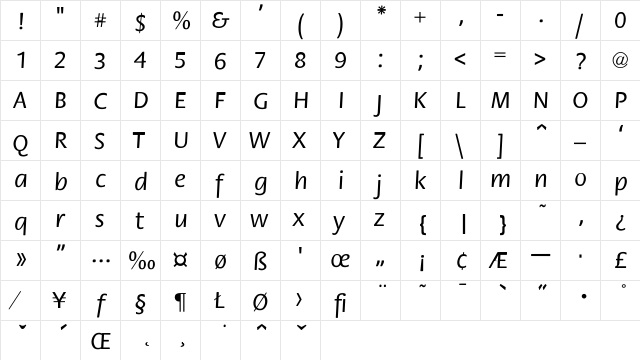
Flora-Normal Regular Font Preview
Flora-Normal Regular
Flora-Normal Regular Font Details
Design Context for Flora-Normal Typeface
Flora-Normal takes a measured approach to typography — its balanced proportions and neutral character make it a reliable workhorse for both digital and print work.